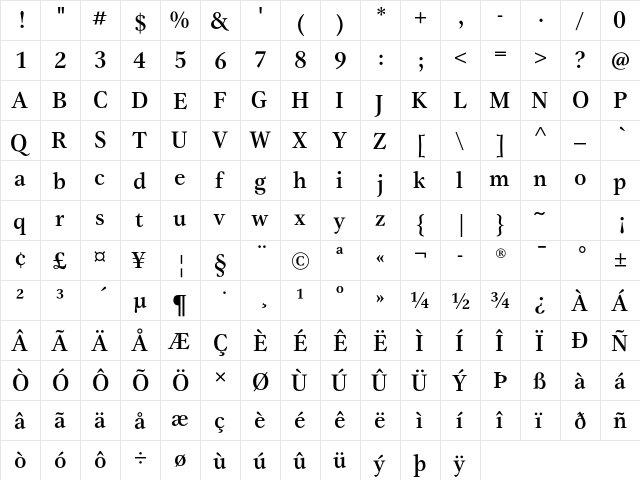
Gamma ITC Std Medium
| Designer | Jovica Veljovic |
Design Context for Gamma ITC Std Typeface
Gamma ITC Std offers clean, dependable letterforms without strong stylistic allegiance, making it a practical choice for designers who need flexibility.